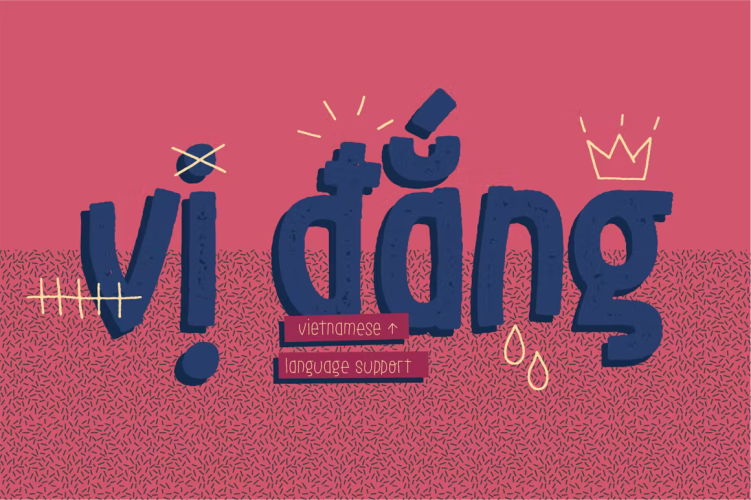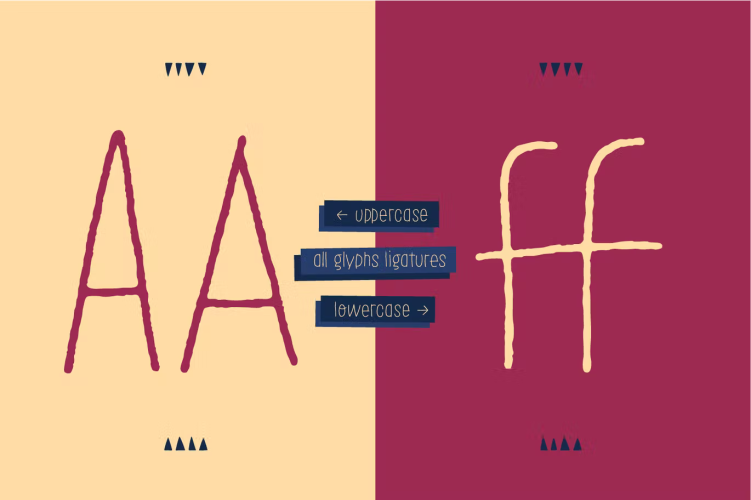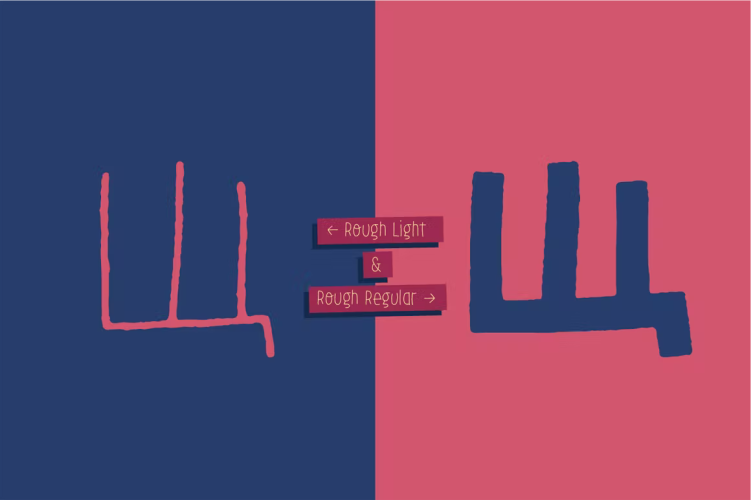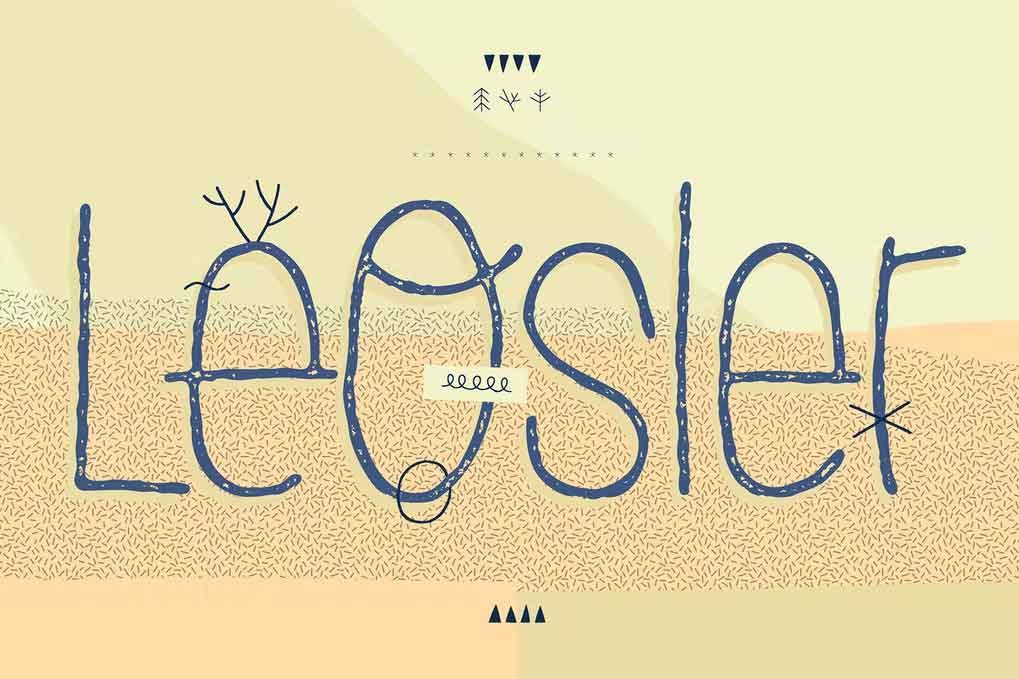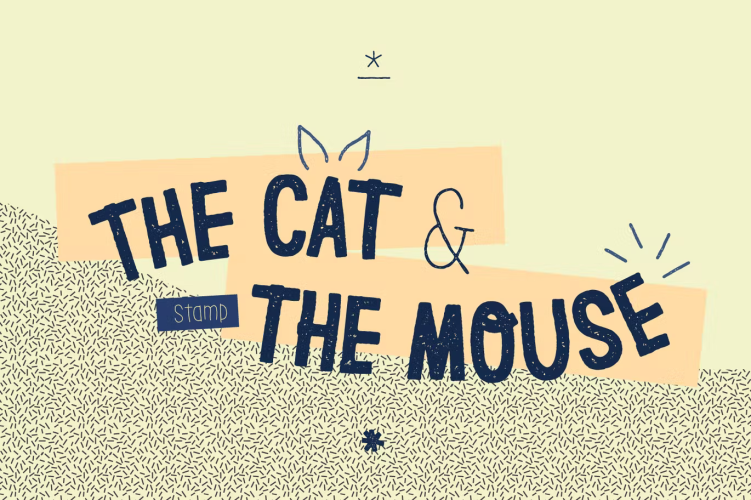
LeOsler Font
This license is only for LeOsler’s Sharp styles. LeOsler is a decorative, fun, handwritten font which will bring a personal look to your work. This font includes the Latin, Greek and Cyrillic alphabets, and can be used in a wide range of languages, including English, Spanish, Italian, French, German, Polish, Czech, Vietnamese, Russian, Greek, among many others.
Its OpenType features include ligatures for all repeated characters in upper & lowercase, contextual alternates for all supported alphabets, 4 ampersand alternates, scientific superior/inferior figures, fractions, etc.
LeOsler also offers a set of icons that will provide a much more personal look to your work! Available in Regular and Light weights, and Rough and Stamp styles, for a perfect match with the font styles.
Where LeOsler Font works best
LeOsler Font brings a personal, handwritten warmth to invitations, menus and place cards.
Craft brands — coffee, cosmetics, bakery — use scripts like LeOsler Font for signature-style logos and labels.
Pair LeOsler Font with a plain sans for quotes, stories and Pinterest pins that feel handmade.
What is LeOsler Font good for?